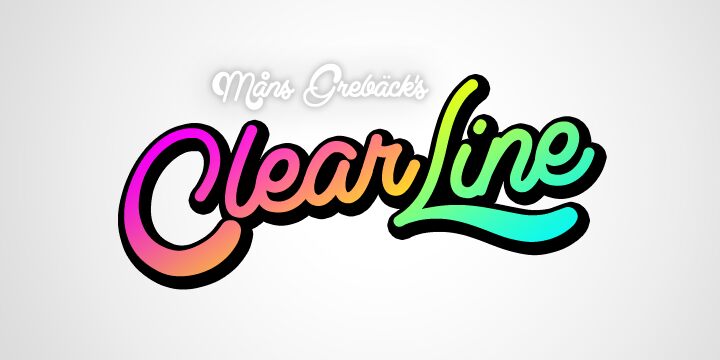
Clear Line by Måns Grebäck is a free handwritten font with an exuberant, signature-like sweep. Its connected letters alternate fine entry strokes with broad, rounded curves, creating a lively line across the page. Tall loops and extended flourishes give the lettering a distinctly decorative silhouette.
Floral line art and ribbon motifs can echo its looping strokes on wedding invitations and event branding. The same flowing construction suits beauty packaging and boutique logos, especially when a product needs lettering that feels personal and ornate. Its generous curves can also become part of the artwork on fashion merchandise or album covers.